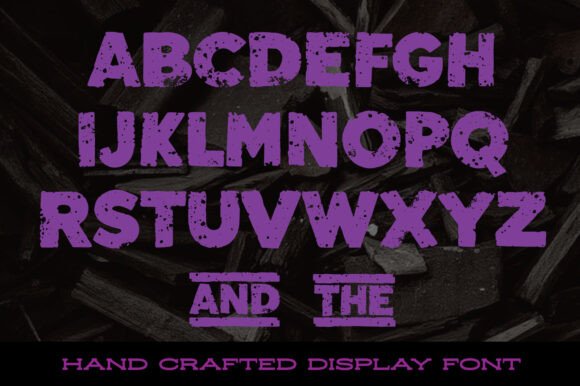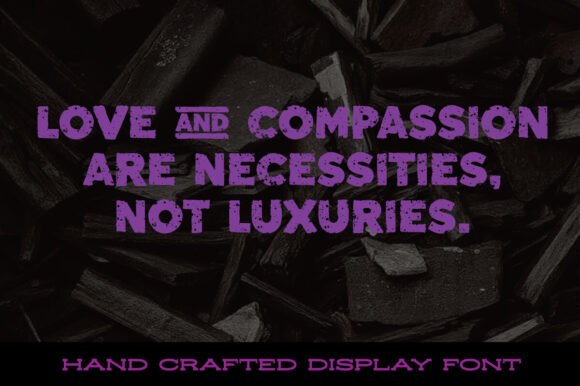
Imprinta Font: Bringing a Touch of Handmade Charm to Your Creative Projects
Remember that moment when you stumbled upon an old, worn-out rubber stamp in your grandmother’s attic? The way the ink seemed to seep into the paper, leaving behind a faint, imperfect impression? That’s the essence of the Imprinta Font, a design resource that captures the rugged, tactile quality of ink pressed onto paper.
For designers, the Imprinta Font is a valuable asset, offering a unique, high-quality design element that can elevate any creative project. With its bold, blocky presence and rough edges, this font is perfect for creating a vintage, industrial aesthetic that’s both authoritative and handmade. Whether you’re working on a retro poster, packaging design, or branding project, the Imprinta Font is sure to add a touch of personality and character to your work.
Key Features of Imprinta Font
- Comes in 6 weights, ranging from Light to Extra Bold, offering versatility for different design needs.
- Designed to provide exceptional legibility and clarity, making it suitable for both digital and print media.
Honest Review: Imprinta Font
I recently had the chance to work with the Imprinta Font, and I must say it’s a game-changer for any creative project. This font is a high-quality design resource that can elevate your work to the next level. One of the standout features of Imprinta is its versatility – it’s perfect for both digital and print projects, and it’s incredibly easy to use.
- ✨ Wide range of styles: Imprinta comes with a variety of styles, from bold and playful to elegant and sophisticated, making it a great choice for a wide range of creative projects.
- ✨ High-quality design: The font is incredibly well-designed, with clean lines and a transparent background that makes it perfect for use on logos, business cards, and other design elements.
That being said, there are a few limitations to keep in mind. ⚠️ Limited font weights: While Imprinta comes with a variety of styles, it’s not as comprehensive as some other fonts on the market, which can make it a bit limiting for more complex projects.
Some tips for getting the most out of Imprinta Font include using it for designs with transparent backgrounds and adjusting the font size and style to suit your creative project. Common use cases for Imprinta Font include logos, business cards, brochures, and other marketing materials.